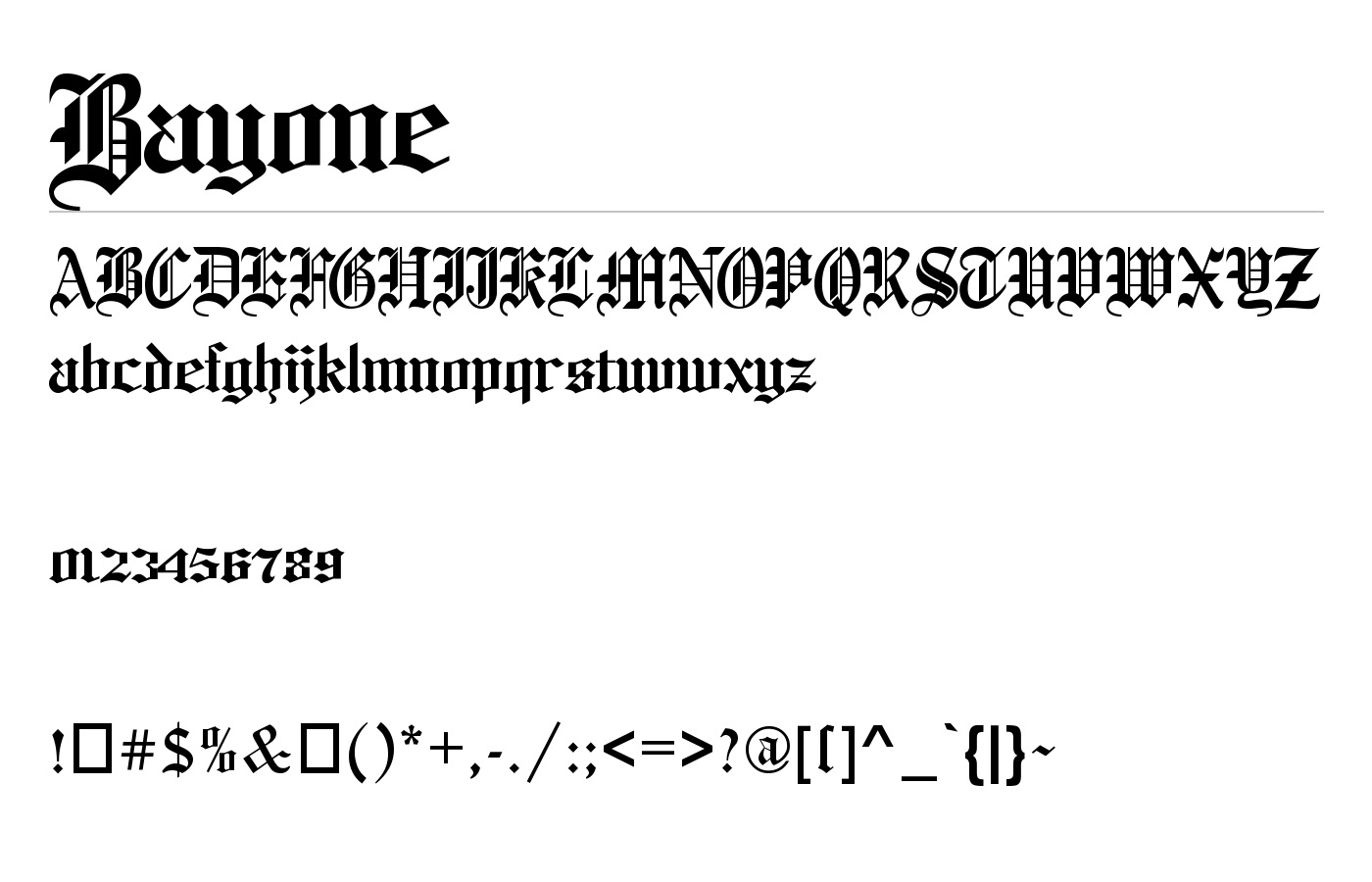
Bayone is a bold blackletter serif font that showcases strong, sharp strokes with high contrast between thick and thin elements, capturing a gothic, vintage vibe. Its detailed, ornamental letterforms with pointed edges and complex curves make it perfect for headlines, logos, and designs aiming for an old-world or dramatic effect. This font works best where a striking, traditional aesthetic is desired, adding character and a historic feel to branding and editorial projects.
Bayone Font
About Bayone Font